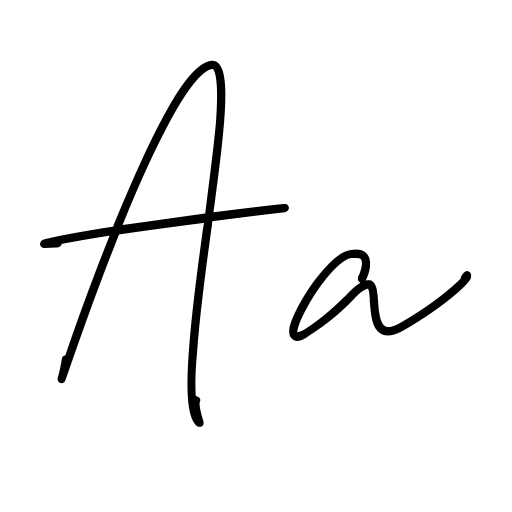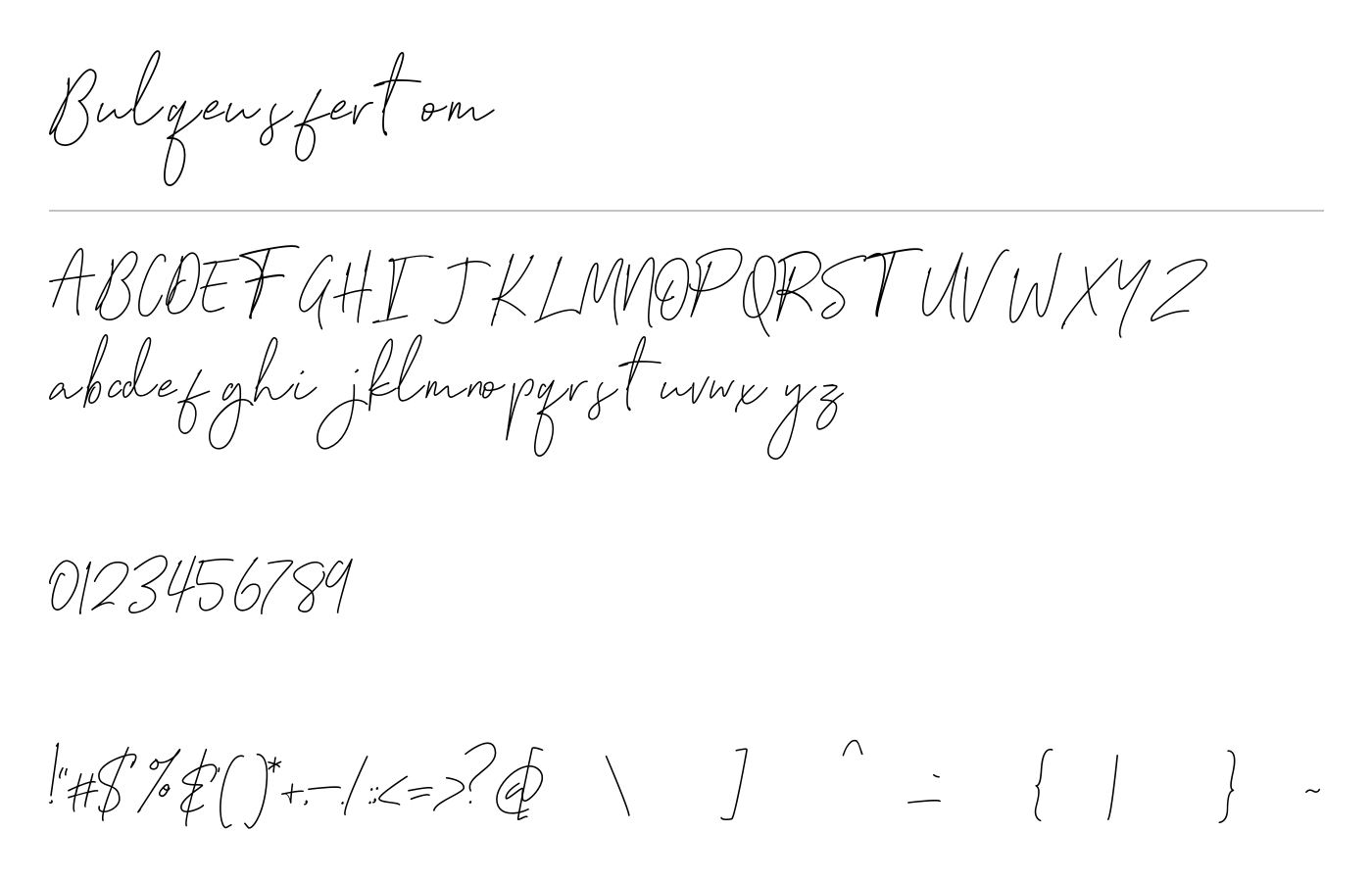
Bulqeusfertom is a delicate, handwritten script font with thin, flowing strokes that create an elegant and airy feel. Its tall, slender letterforms and casual style make it perfect for adding a personal, artistic touch to wedding invitations, branding, and creative projects where a light, sophisticated look is desired. This font works well in headlines or short text for a refined yet approachable aesthetic.
Bulqeusfertom Font